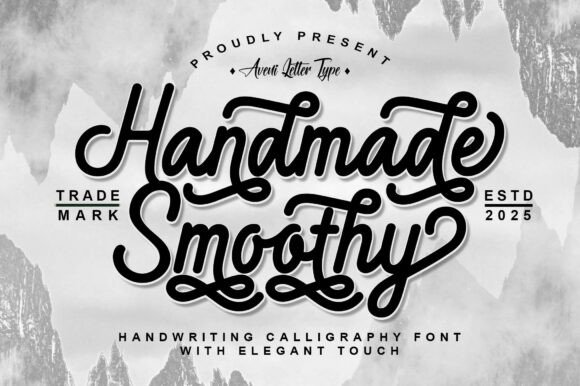
Introducing Handmade Smoothy Font: Elevate Your Brand with Elegance
In the world of typography, a well-crafted font can make all the difference in elevating your brand’s visual identity. Meet the Handmade Smoothy font, a stunning handwritten calligraphy style that exudes luxury and sophistication. In this article, we’ll dive into the features and benefits of this beautiful font, and explore how it can enhance your creative projects.
What is Handmade Smoothy Font?
The Handmade Smoothy font is a carefully crafted typeface that mimics the fluidity and elegance of handwritten calligraphy. Its smooth, flowing lines and curves create a sense of refinement and poise, making it perfect for brands that want to convey a sense of high-end quality.
Neat Kerning and Ligatures
One of the standout features of the Handmade Smoothy font is its meticulous kerning process. Kerning is the process of adjusting the spacing between characters to ensure that the text looks visually appealing and easy to read. In the case of Handmade Smoothy, the kerning has been carefully fine-tuned to create a seamless and harmonious flow of characters.
In addition to its expert kerning, the Handmade Smoothy font also features ligatures, which are special characters that combine two or more letters to create a single, flowing glyph. Ligatures add an extra layer of sophistication to the font, making it even more suitable for high-end branding and design projects.
Easy-to-Use Alternatives and Versatility
The Handmade Smoothy font offers several easy-to-use alternatives, making it a versatile choice for a wide range of projects. Whether you’re working on company branding, logos, product packaging, or social media graphics, this font has got you covered.
Some of the many use cases for the Handmade Smoothy font include:
- Company branding and logos
- Product branding and packaging
- Clothing and apparel design (e.g., hoodies, t-shirts)
- Store names and signage
- Social media graphics and Instagram posts
A Font that’s Instagrammable and Creative
In today’s visually-driven world, having a font that’s Instagrammable and creative is crucial for brands that want to stand out. The Handmade Smoothy font is specifically designed to look great in a variety of projects, from social media graphics to branding and advertising materials.
With its elegant and refined aesthetic, the Handmade Smoothy font is sure to grab attention and leave a lasting impression on your audience. Whether you’re a fashion brand, lifestyle influencer, or small business owner, this font can help elevate your visual identity and take your brand to the next level.
Tips and Tricks for Using Handmade Smoothy Font
To get the most out of the Handmade Smoothy font, here are a few tips and tricks to keep in mind:
- Use it sparingly: While the Handmade Smoothy font is beautiful, it’s best used in moderation. Use it for headlines, titles, or key messaging to create visual impact.
- Pair it with contrasting fonts: To create visual interest, pair the Handmade Smoothy font with contrasting fonts that have a more straightforward, sans-serif design.
- Experiment with colors: The Handmade Smoothy font looks great in a range of colors, from bold and bright to soft and pastel. Experiment with different colors to find the perfect fit for your brand.
In conclusion, the Handmade Smoothy font is a stunning and versatile typeface that can elevate your brand’s visual identity and take your creative projects to the next level. With its elegant and refined aesthetic, neat kerning and ligatures, and easy-to-use alternatives, this font is perfect for brands that want to convey a sense of luxury and sophistication.